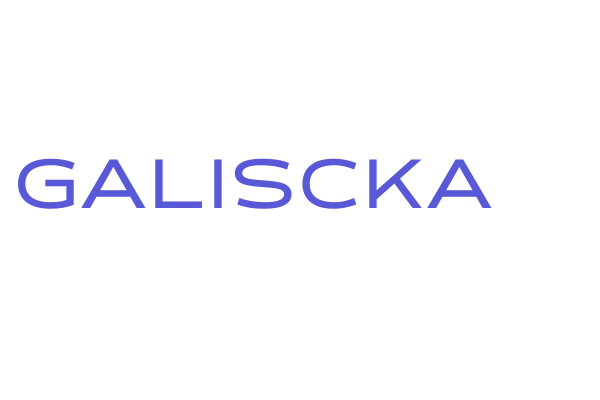
GALISCKA is a basic sans serif font designed by mohamed yahyaoui. With a clean and modern style, this font is perfect for a wide range of design projects. Its simplicity and readability make it ideal for use in various applications, from branding to web design.
Font Name: GALISCKA
Designer: mohamed yahyaoui
Font Family: GALISCKA